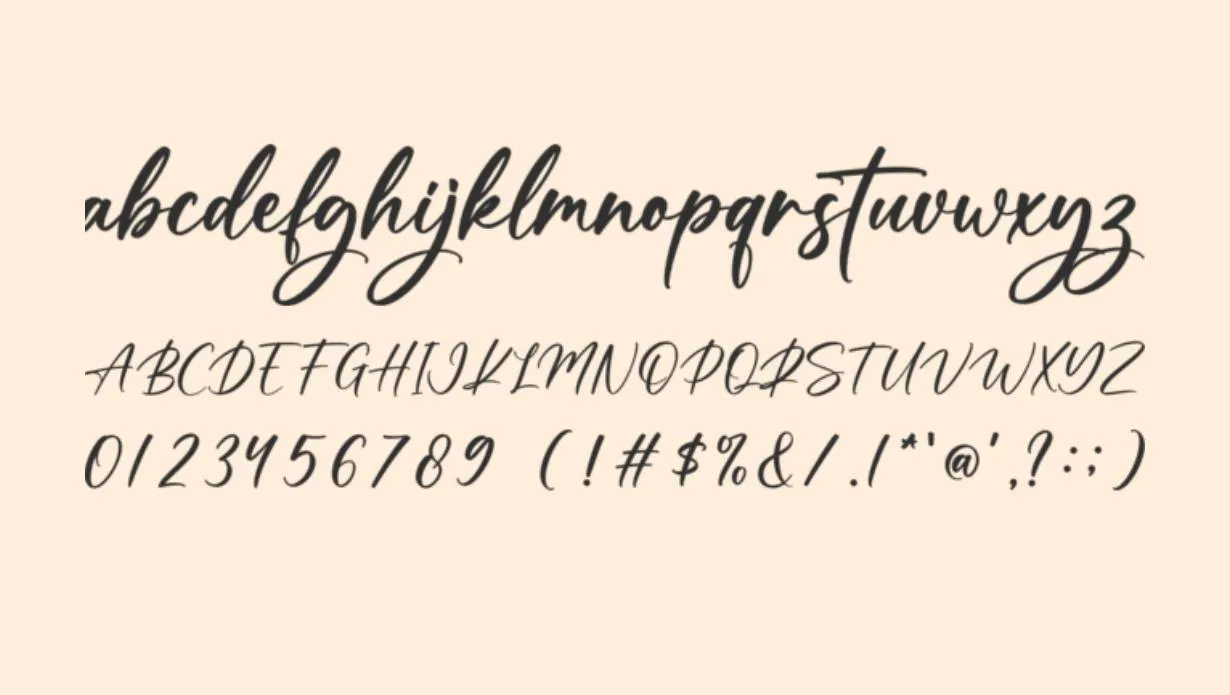
Rosaline Script Font is a whimsical and smooth script typeface commonly used for imaginative branding, children’s merchandise, and designs that strive to evoke a feeling of enjoyment and innovation.
Its informal and friendly style adds a touch of personality to your designs.
Rosaline Script Font Family
Name | Rosaline Script Font |
Designer | Graphix Line Studio |
Style | Script |